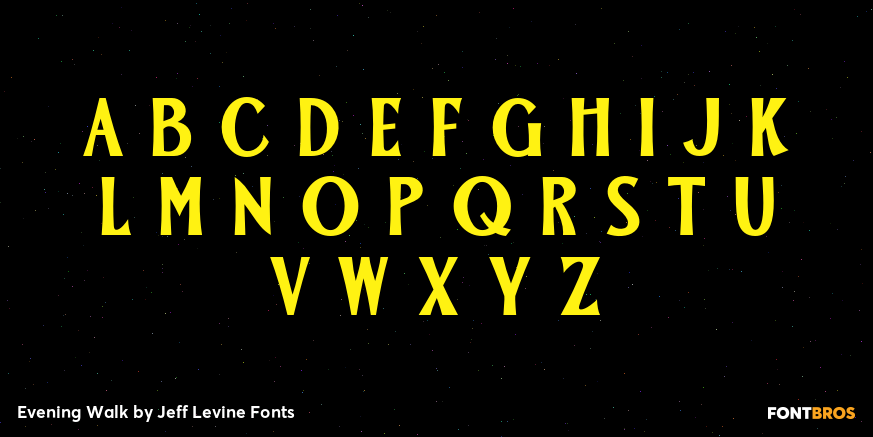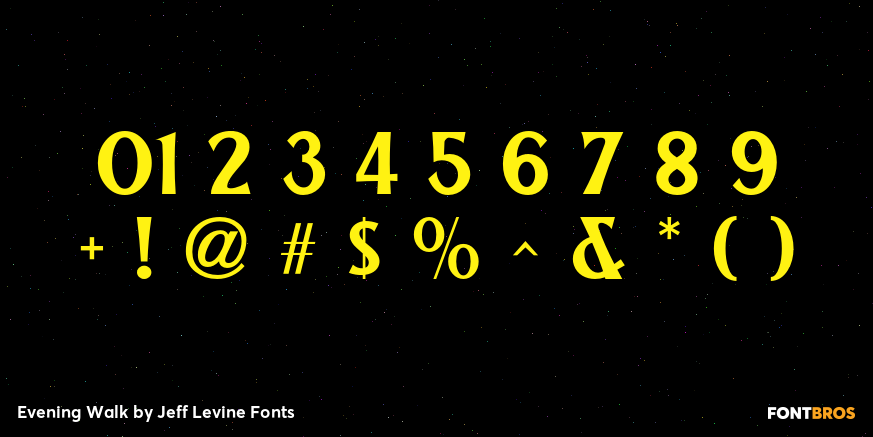
Evening Walk
The cover of the sheet music for1930s 'Walkin' My Baby Back Home” features the title hand lettered in a bold sans serif with the slightest flair of Art Nouveau styling.
This design is now available as Evening Walk JNL, which is available in both regular and oblique versions.